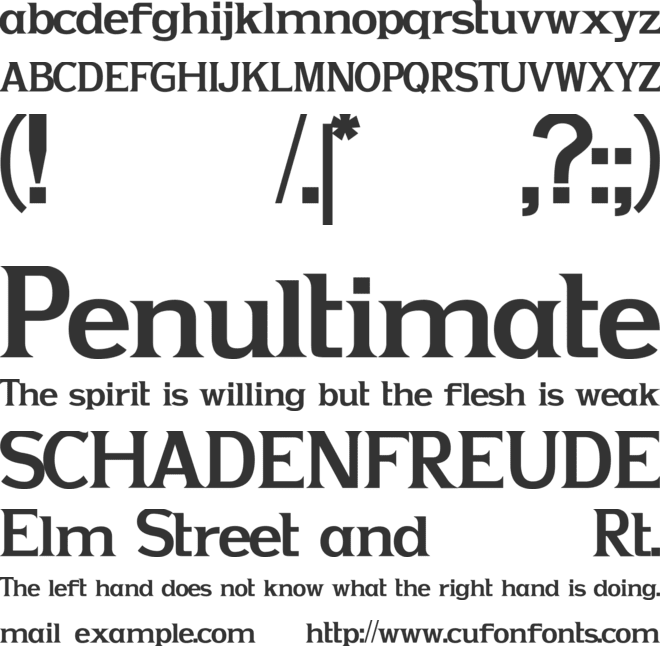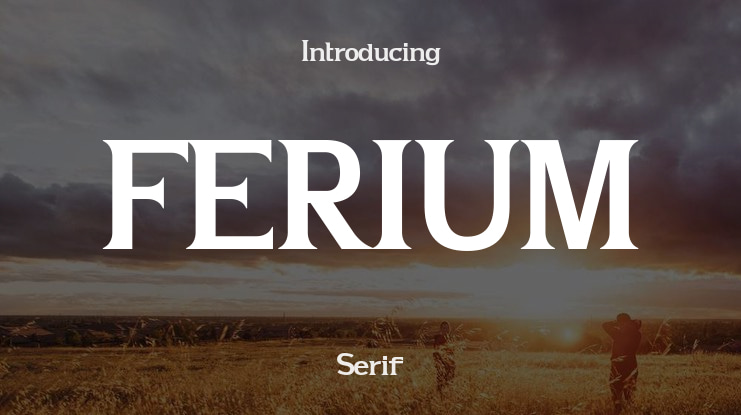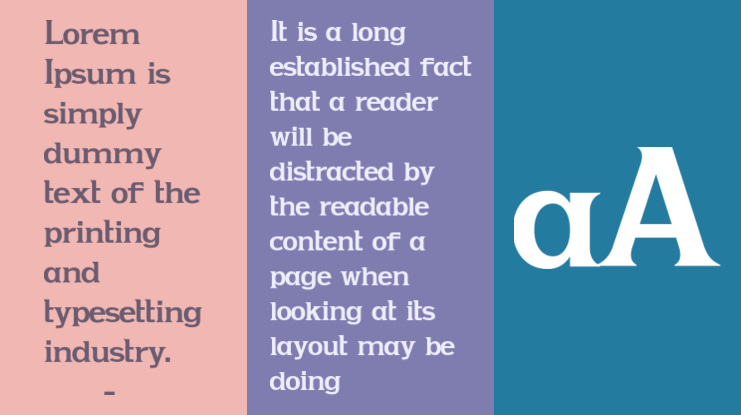
FERIUM Font Family
🎨 Font Name: FERIUM by Minimalist Art Studio
🎨 Font Description: FERIUM is a bold serif with 600+ glyphs, blending minimalist art and editorial strength for expressive, multilingual design.
βœ” Complete Latin set + multilingual diacritics
βœ” Alternates, stylistic sets & ligatures
βœ” Numbers, small caps, and extended punctuation
βœ” Bonus italics and family styles